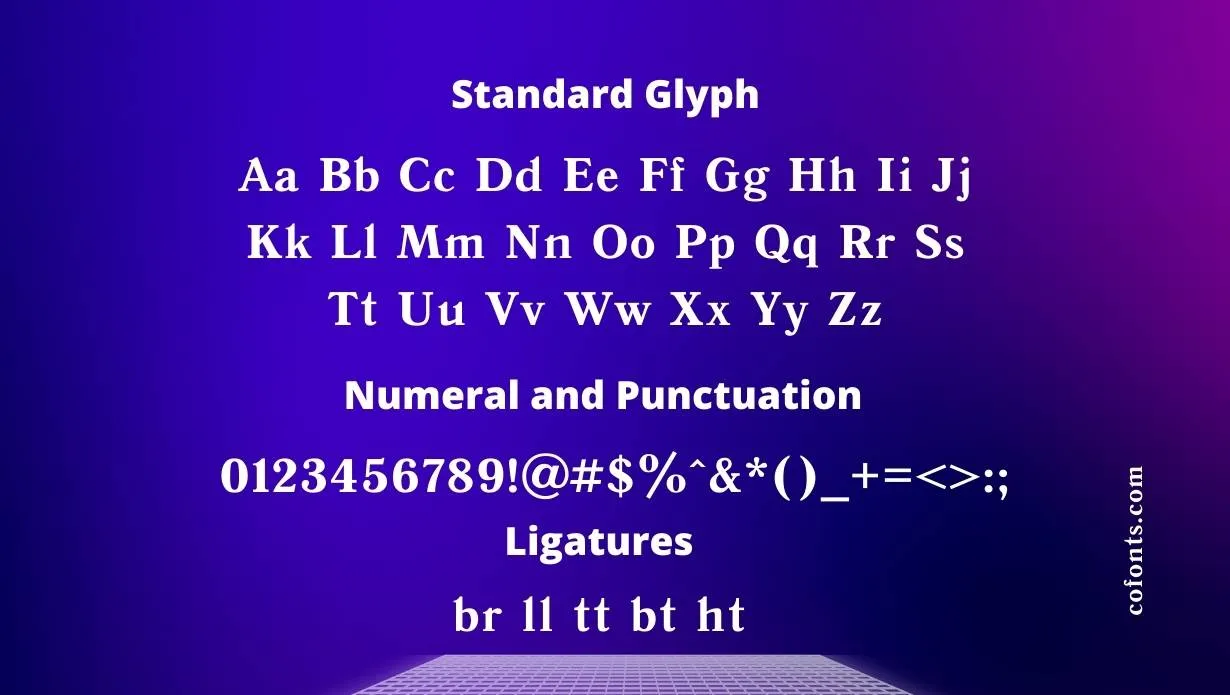
In this post, we introduce Antiqua Font which belongs to the serif family. This awesome family was designed by Joe Rogan. Joe is a freelance writer and designer. He has worked on various projects for clients all over the world.
This classy font is a classic serif typeface that has been around for centuries. It is one of the most popular and widely used serif fonts. This font has a long history and has been used by many famous designers and artists. You can use desire pro font which has the same style and characters as this one. Its copy and paste function is best for different types of graphic designs.
The word “antique” means something that is very old, so it’s no surprise that Antiqua Typeface is an old-fashioned typeface. But don’t let its age fool you – this font is still very popular today. In fact, it’s one of the most widely used serif fonts on the web. The generator tool of this typeface is perfect for a lot of designs.
Usage of Antiqua Font
There are different places where you can use this font family. You can use this texture for texts that need to be easy to read. It is perfect for use in Formal documents, Books, and website designs. In web designs, this font can be used for both headings and body text.
In all business departments, from marketing to accounting, Antiqua Font is the preferred typeface for formal documents. It’s also perfect for any document or website that needs to convey a feeling of authority and trustworthiness. If it is your desire to get the best response from all of your audience then put cmu serif font with the pairing of this family.
Antiqua Font Family View
What is the type of Antiqua Font?
This awesome font is a serif typeface. Serif fonts have small lines at the end of letters. It has neat and clean textures.
Can I use Antiqua Font for Logos designs?
Yes, It is suitable for use in logos or other graphical designs. This is because the serifs make the letters appear more classic.
where we can use Antiqua Font?
There are different places where you can use this font family. You can use this texture for texts that need to be easy to read.